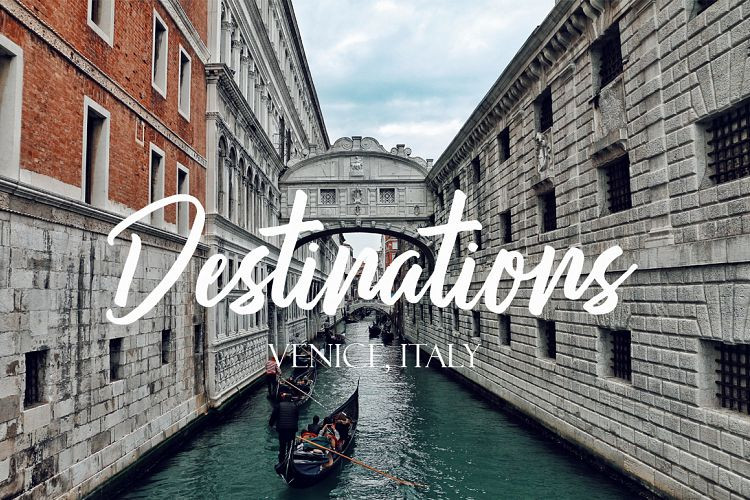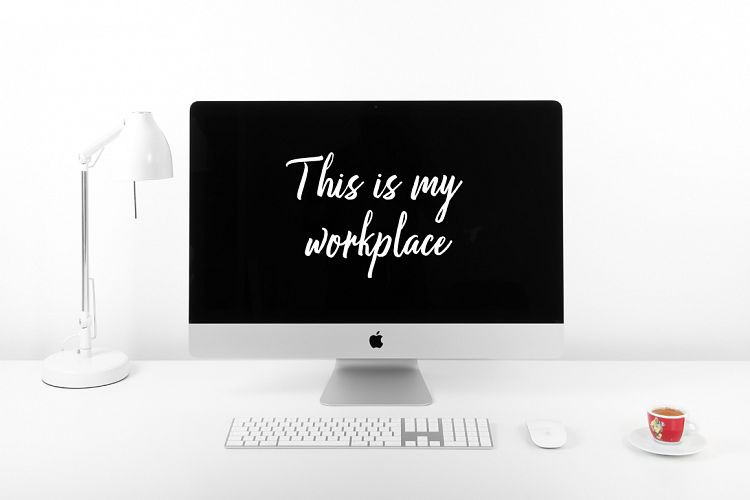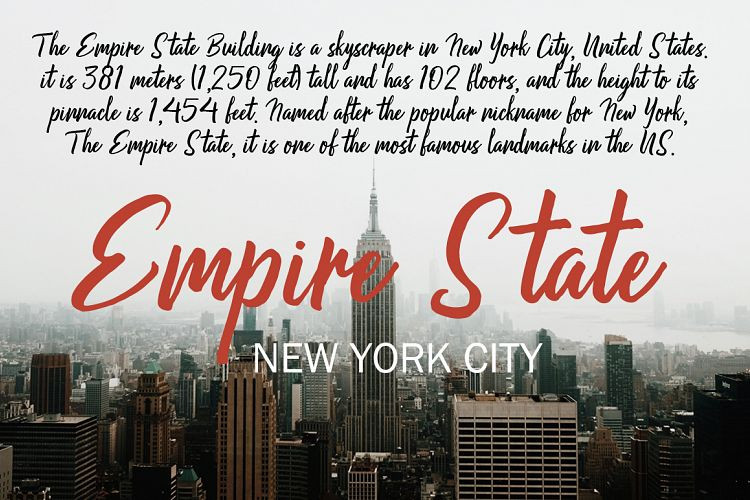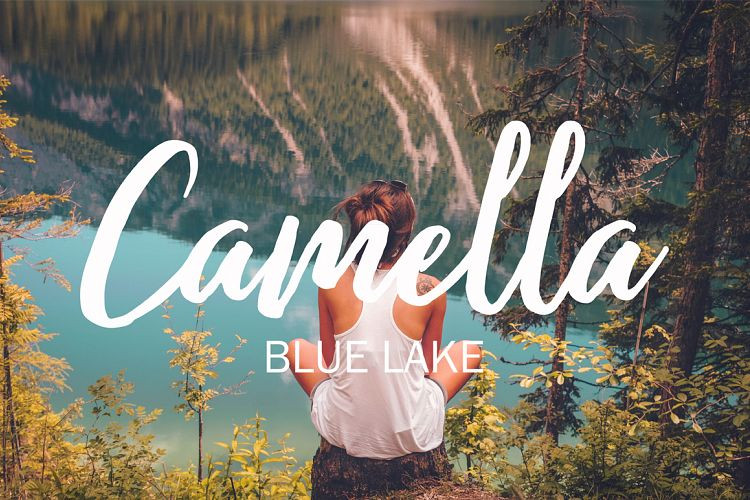
Fantasy Script Font
Fantasy is modern, fresh, casual, and stylish brush font with clean
elements.It will add a natural and authentic feel to any design.